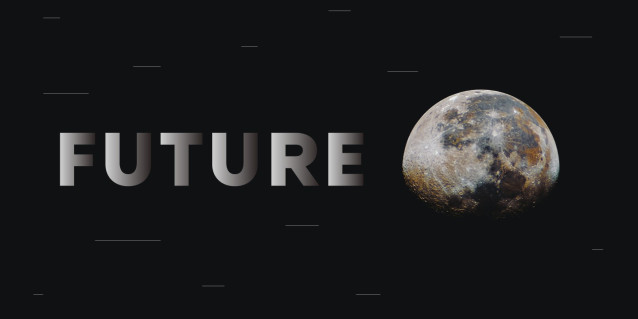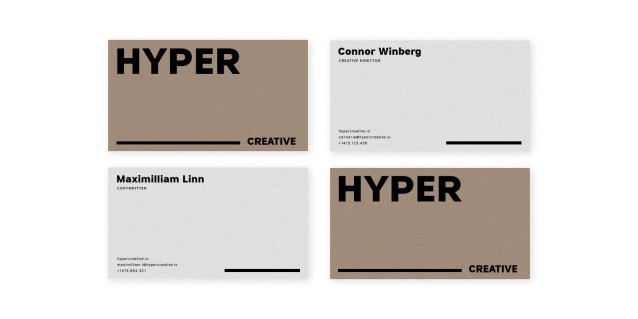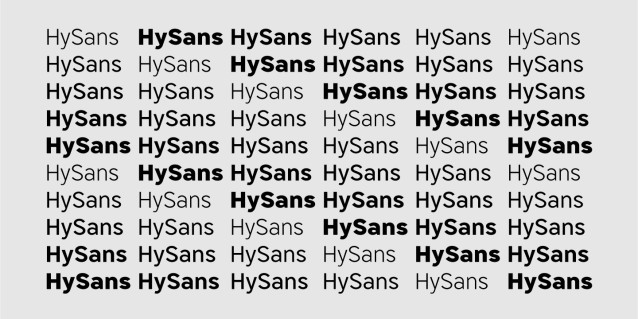
HF Hy Sans Font
HF Hy Sans Font has its roots in contemporary typefaces with humanist touches. HySans is designed to fit digital screen from desktop to portable devices. It is strongly legible from headline to body copy with a high x-height design which helps the lowercase feel as imposing as it’s all caps counterpart. HySans is available in Five weights with 3 packages. Generously use it everyday, for everything.
| Classification: | Body Text Fonts, Display Fonts, Headline / Title Fonts, Modern Fonts, Sans Serif Fonts, Techno / Futuristic Fonts |